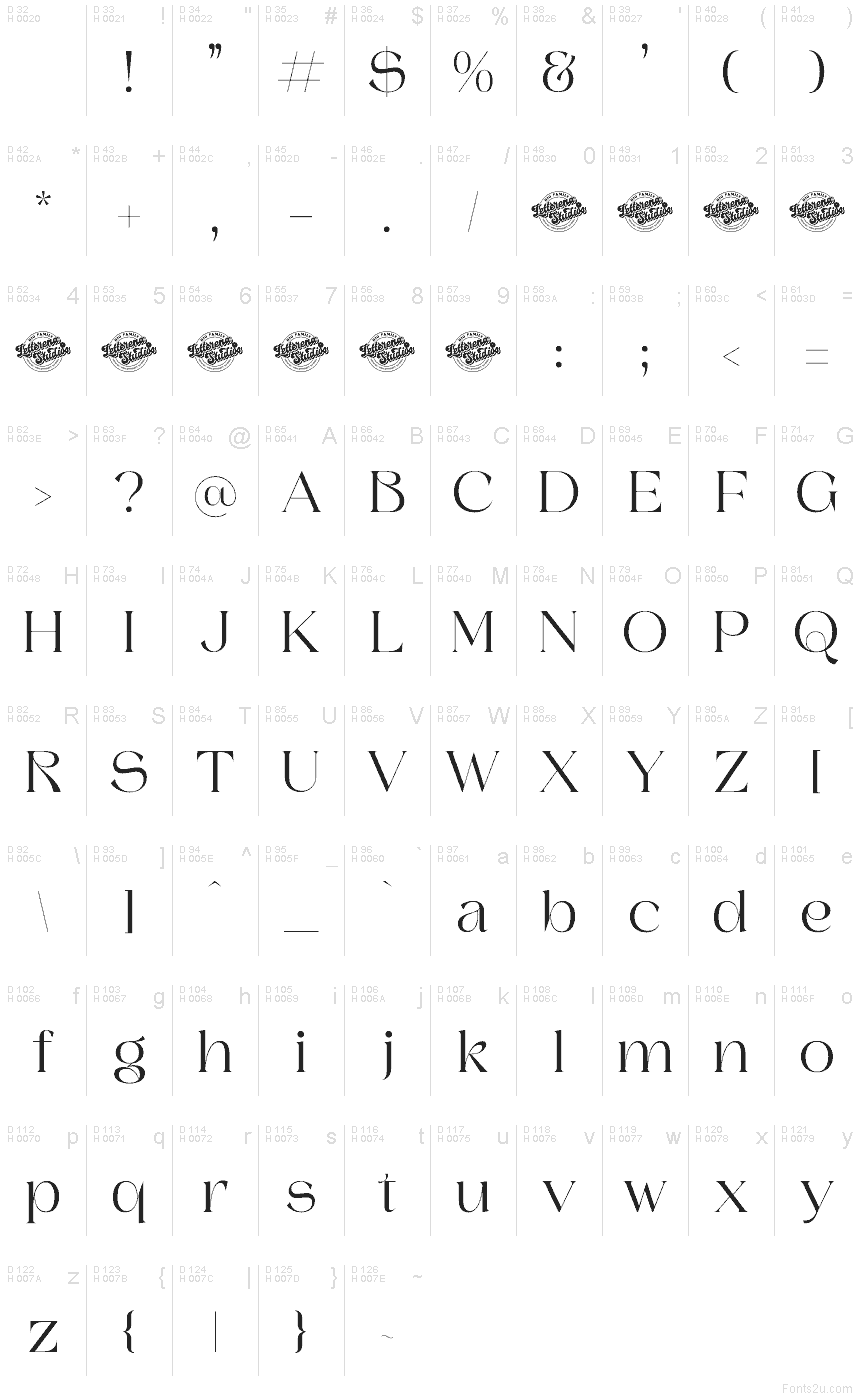
Sagite DEMO VERSION
Sagite font by Letterena Studios is a free serif font that turns every word into sculpture. Its ink-rich curves swell into lush bowls, then taper to razor-fine edges, creating a dramatic rhythm that feels both editorial and luxurious. Subtle flares and sweeping curves give it a couture, hand-drawn elegance that instantly catches the eye without feeling fussy.
Using Sagite, headlines feel like logotypes—sleek, confident, and tailored. This free font shines on fashion branding, beauty packaging, magazine covers, posters, wedding stationery, and premium product labels. Pair Sagite with a clean geometric sans in smaller text sizes to let its expressive, inky shapes breathe and stay legible.